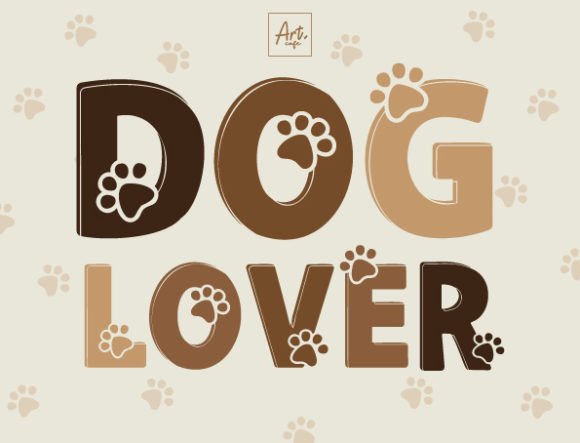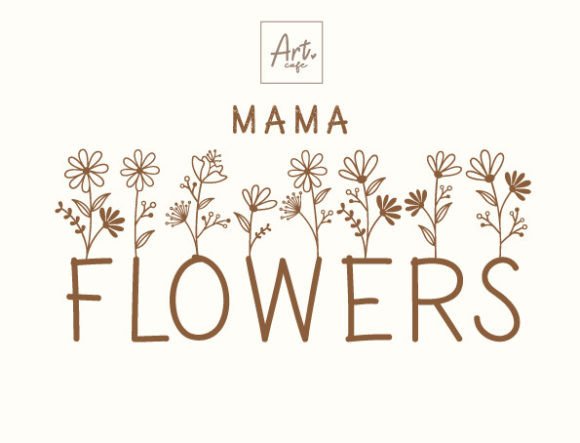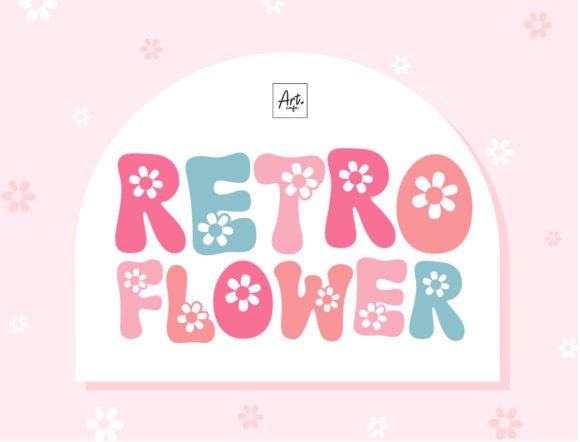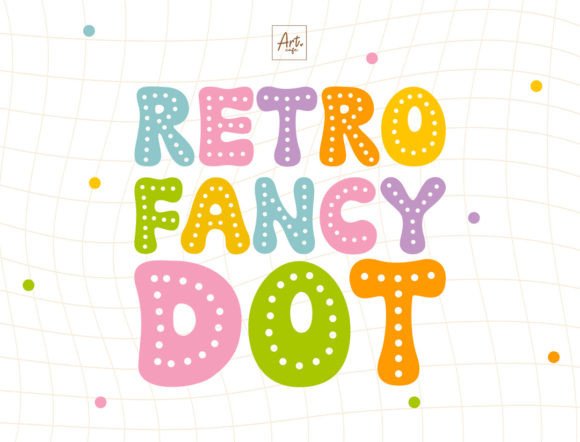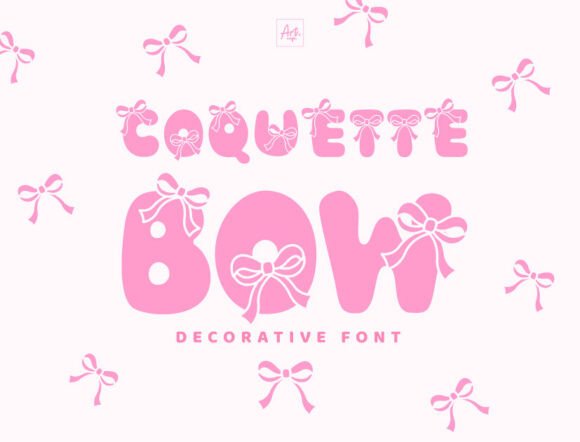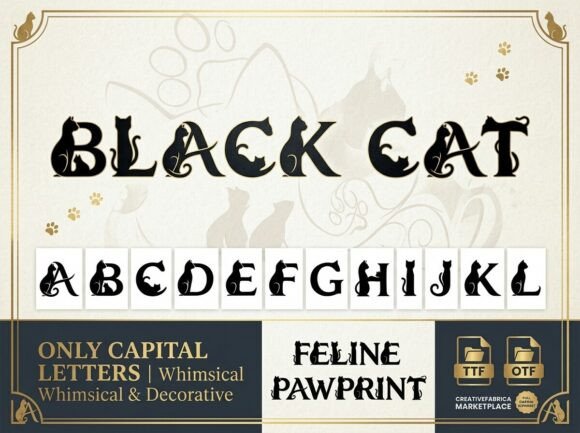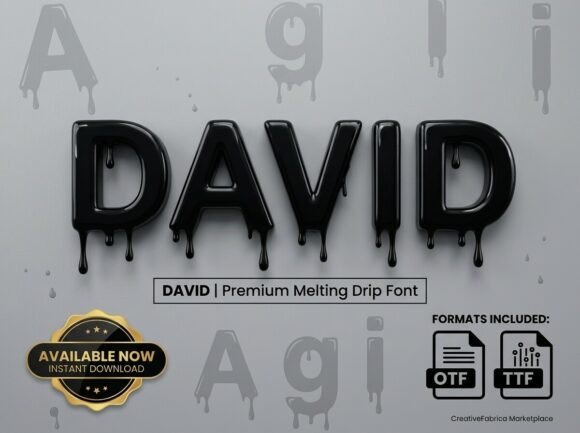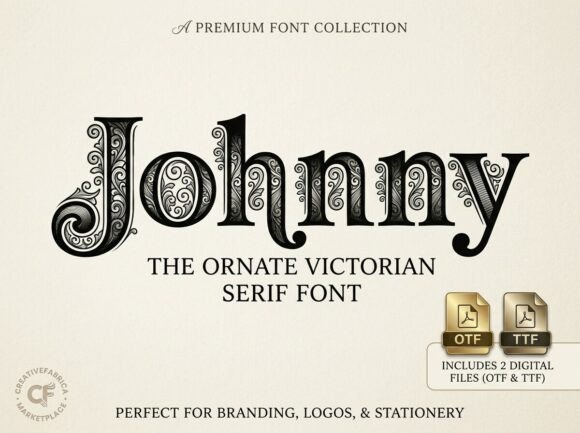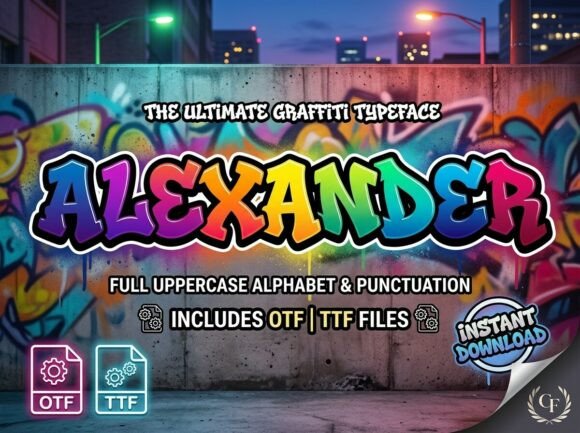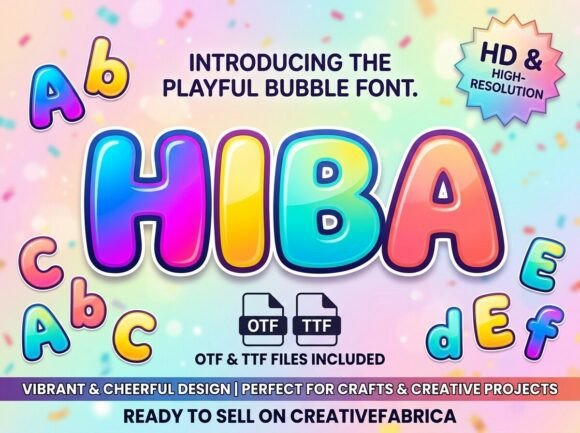
Decorative fonts are the ultimate way to showcase your unique style. While they aren't meant for long paragraphs, they are the perfect choice for headlines and logos where you want to break the mold. Whether you’re going for "whimsical and fun" or "edgy and experimental," these fonts turn your text into a work of art.
Typefaces made to
decorate, delight & stand out.
A curated cabinet of 200 decorative fonts for logos, monograms, crafts, weddings, kids designs, retro branding, gothic projects, floral artwork, themed merchandise, and bold display typography.
Browse 200 unique decorative fonts across 8 useful style collections for branding, crafting, events, and creative work.
🔠Bold Display & Novelty
Attention-grabbing decorative fonts for headlines, logos, posters, packaging, crafts, and distinctive branding.
Decorative FontPokenom
A bold decorative font for headlines, logos, posters, packaging, merchandise, crafts, and memorable visual branding.
Decorative FontLucas
A bold decorative font for headlines, logos, posters, packaging, merchandise, crafts, and memorable visual branding.
Decorative FontOver the Lazy
A bold decorative font for headlines, logos, posters, packaging, merchandise, crafts, and memorable visual branding.
Decorative FontPencil
A bold decorative font for headlines, logos, posters, packaging, merchandise, crafts, and memorable visual branding.
Decorative FontBarbara
A bold decorative font for headlines, logos, posters, packaging, merchandise, crafts, and memorable visual branding.
Decorative FontPolka Dot Duo
A bold decorative font for headlines, logos, posters, packaging, merchandise, crafts, and memorable visual branding.
Decorative FontCotton Candy
A bold decorative font for headlines, logos, posters, packaging, merchandise, crafts, and memorable visual branding.
Decorative FontBlock Grunge
A bold decorative font for headlines, logos, posters, packaging, merchandise, crafts, and memorable visual branding.
Decorative FontJohnny
A bold decorative font for headlines, logos, posters, packaging, merchandise, crafts, and memorable visual branding.
Decorative FontBest Stitch
A bold decorative font for headlines, logos, posters, packaging, merchandise, crafts, and memorable visual branding.
Decorative FontFaye
A bold decorative font for headlines, logos, posters, packaging, merchandise, crafts, and memorable visual branding.
Decorative FontHalftone
A bold decorative font for headlines, logos, posters, packaging, merchandise, crafts, and memorable visual branding.
Decorative FontAdaline
A bold decorative font for headlines, logos, posters, packaging, merchandise, crafts, and memorable visual branding.
Decorative FontIsaac
A bold decorative font for headlines, logos, posters, packaging, merchandise, crafts, and memorable visual branding.
Decorative FontAlexander
A bold decorative font for headlines, logos, posters, packaging, merchandise, crafts, and memorable visual branding.
Decorative FontSugar Pop
A bold decorative font for headlines, logos, posters, packaging, merchandise, crafts, and memorable visual branding.
Decorative FontMarmaid
A bold decorative font for headlines, logos, posters, packaging, merchandise, crafts, and memorable visual branding.
Decorative FontEmbroidery Stitch
A bold decorative font for headlines, logos, posters, packaging, merchandise, crafts, and memorable visual branding.